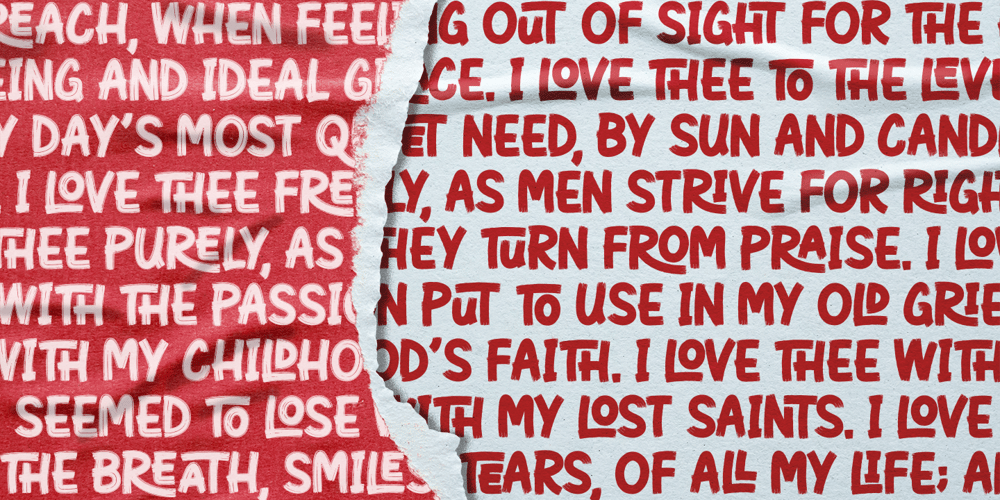
Swipe Write
Swipe Write font
Swipe Write Font Family was designed by Paul Cracknell and published by Something and Nothing. Swipe Write contains 2 styles and family package options. Introducing Swipe Write: where casual charm meets impeccable clarity, perfect for both laid-back vibes and professional elegance. Whether it’s commanding attention on posters, adding personality to T-shirts, guiding the way on signage, or infusing design projects with artistic flair, Swipe Write does it all effortlessly. With options in both Regular and Solid styles, this versatile font lends a freehand touch to any project, transforming ordinary text into captivating expressions of creativity. Embrace the versatility and artistic allure of Swipe Write for your next design adventure.